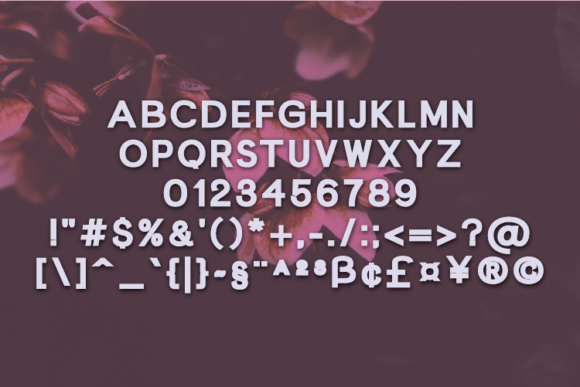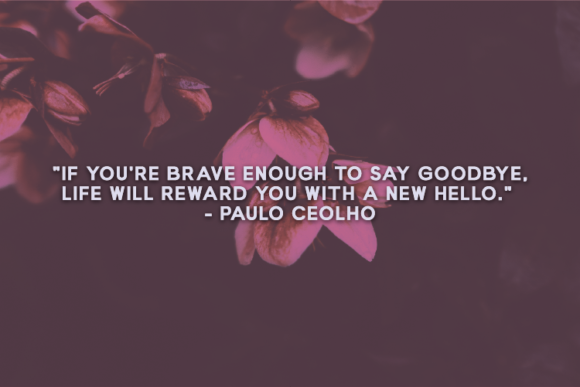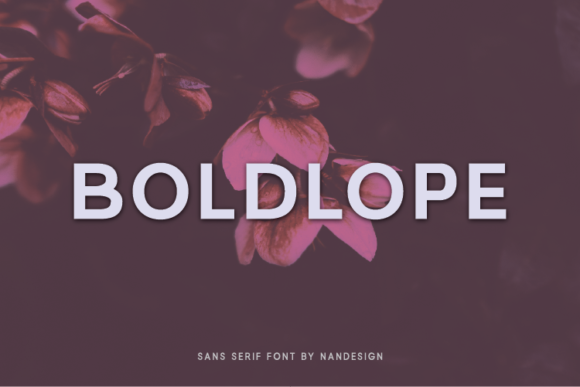
Discover the Elegance of Boldlope Font: A Minimal Sans Serif for Modern Designs
In the world of typography, fonts play a crucial role in conveying messages, setting tones, and creating visual identities. For designers, crafters, and anyone looking to make a statement with their text, finding the right font can be a game-changer. This is where Boldlope comes into play—a minimal, yet elegant sans serif font that is making waves in the design community. In this article, we’ll dive deep into the characteristics, benefits, and uses of Boldlope, and why it might just become your new favorite go-to font.
What is Boldlope Font?
Boldlope is a minimal, yet elegant sans serif font designed to cater to a wide variety of design needs. Its neat and simple style makes it incredibly versatile, suitable for projects that require a touch of elegance and sophistication. Whether you’re working on a branding project, a website design, crafting a presentation, or creating digital content, Boldlope offers a clean and modern look that can elevate your work.
Key Features of Boldlope Font
• Minimalist Design: Boldlope’s design is characterized by its simplicity and minimalism. It lacks unnecessary flourishes, making it clean and easy to read.
• Elegant Appearance: Despite its minimalistic approach, Boldlope exudes elegance. Its smooth lines and balanced proportions make it perfect for designs that require a sophisticated look.
• Sans Serif: As a sans serif font, Boldlope offers a contemporary look that is highly legible on both digital and print media.
• Versatility: One of the standout features of Boldlope is its versatility. It can be used in a variety of contexts, from headings and titles to body text, making it a highly adaptable font for any project.
Benefits of Using Boldlope Font
There are several benefits to using Boldlope in your designs:
• Enhanced Readability: Its clear and simple design ensures that your text is easy to read, which is crucial for user experience.
• Professional Look: Boldlope can give your designs a professional and polished look, which is essential for creating a good impression.
• Time-Saving: With Boldlope being versatile and easy to use, it can save you time in selecting and pairing fonts for different parts of your design.
• Creativity Boost: The elegant and minimalistic design of Boldlope can inspire creativity, allowing you to focus on the overall aesthetic and message of your project.
Who Can Benefit from Boldlope Font?
Boldlope is a valuable resource for a wide range of professionals and creatives, including:
• Graphic Designers: Looking for a font that can add a professional touch to their designs.
• Web Designers: Needing a clean and modern font that works well on digital platforms.
• Content Creators: Seeking to enhance the readability and aesthetic of their digital content.
• Crafters and Makers: Creating handmade products or digital goods that require a unique and elegant typography.
How to Use Boldlope Font Effectively
To make the most out of Boldlope, consider the following tips:
• Pair with Other Fonts: Experiment with pairing Boldlope with other fonts to create contrast and hierarchy in your designs.
• Adjust Size and Weight: Play with different sizes and weights of Boldlope to add depth and emphasis to your text.
• Consider Context: Think about the context in which your design will be used and adjust your use of Boldlope accordingly.
Author Nan Design
Boldlope font offers a unique combination of minimalism, elegance, and versatility, making it an excellent choice for a wide range of design projects. Its clean lines, simple style, and professional appearance can elevate your work, whether you’re a designer, crafter, or content creator. By incorporating Boldlope into your typography arsenal, you can create visually appealing and effective designs that stand out. So, why not give Boldlope a try and see how it can become your new favorite go-to font?